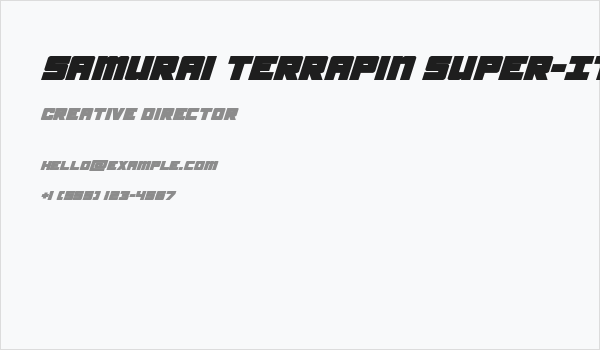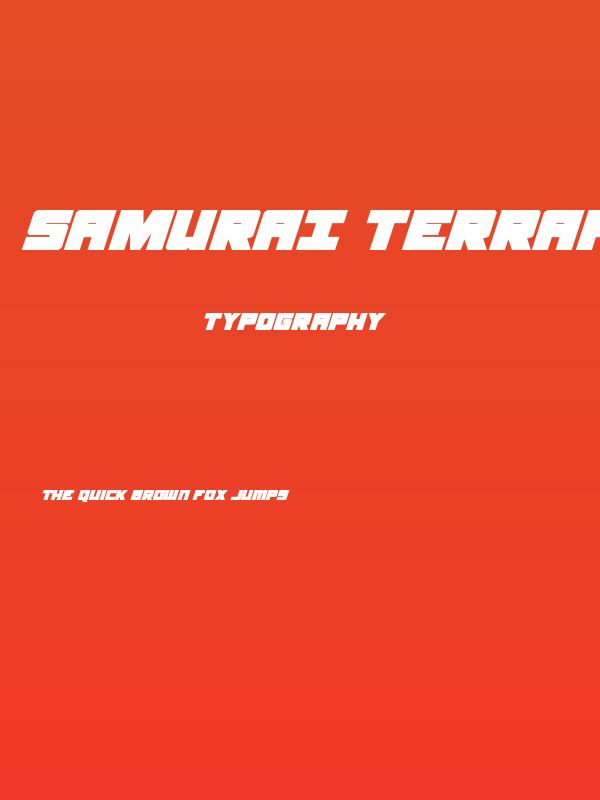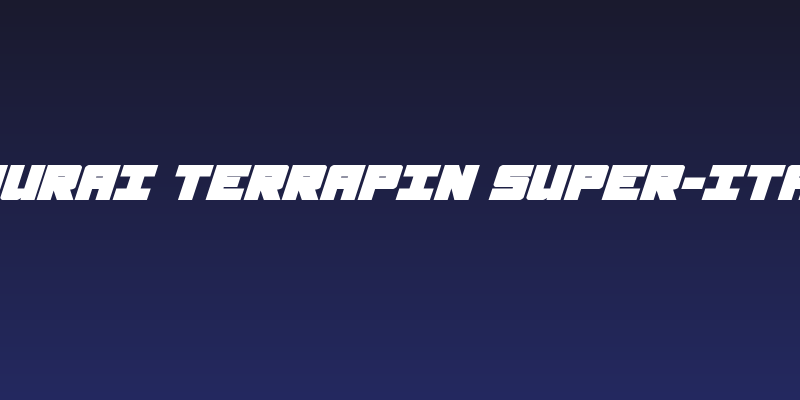
Samurai Terrapin Super-Italic Font
Samurai Terrapin Super-Italic Description
This font exhibits a bold and dynamic style with a strong italic slant, giving it a sense of movement and energy. The characters are wide and robust, featuring sharp angles and a geometric structure that conveys a modern and futuristic aesthetic. The uppercase and lowercase letters maintain a consistent design, with the uppercase being particularly striking due to their size and boldness. Numbers and special characters follow the same design principles, ensuring uniformity across all glyphs. The font's thick strokes and angular cuts make it highly legible while adding a distinctive flair.
| Proposed Projects | Ideal for sports branding, video game titles, action movie posters, and dynamic logo designs. |